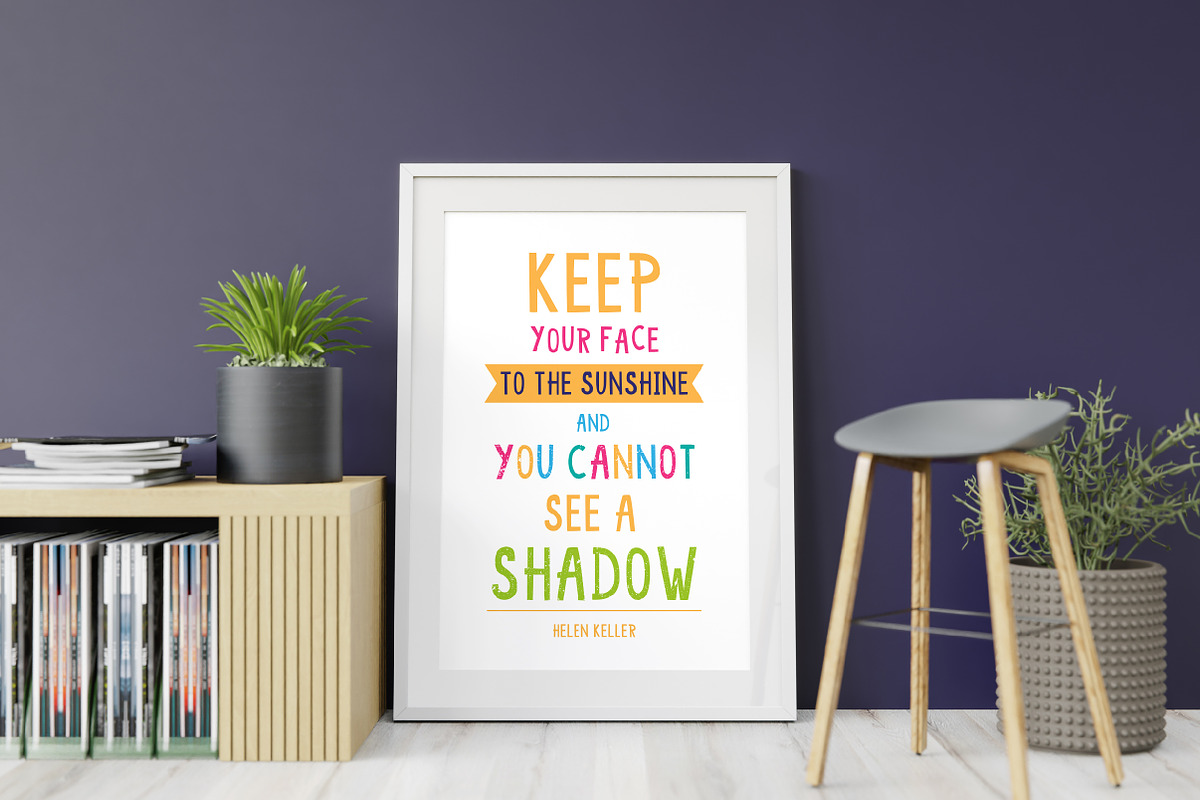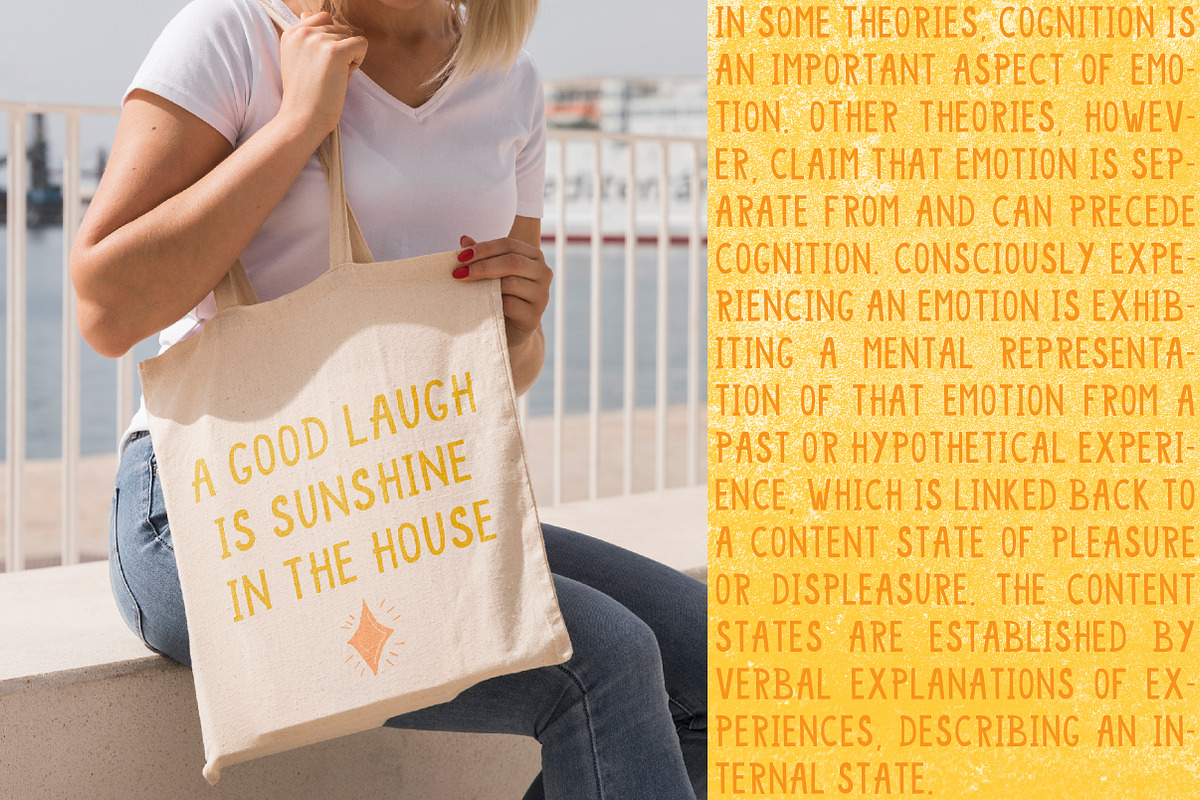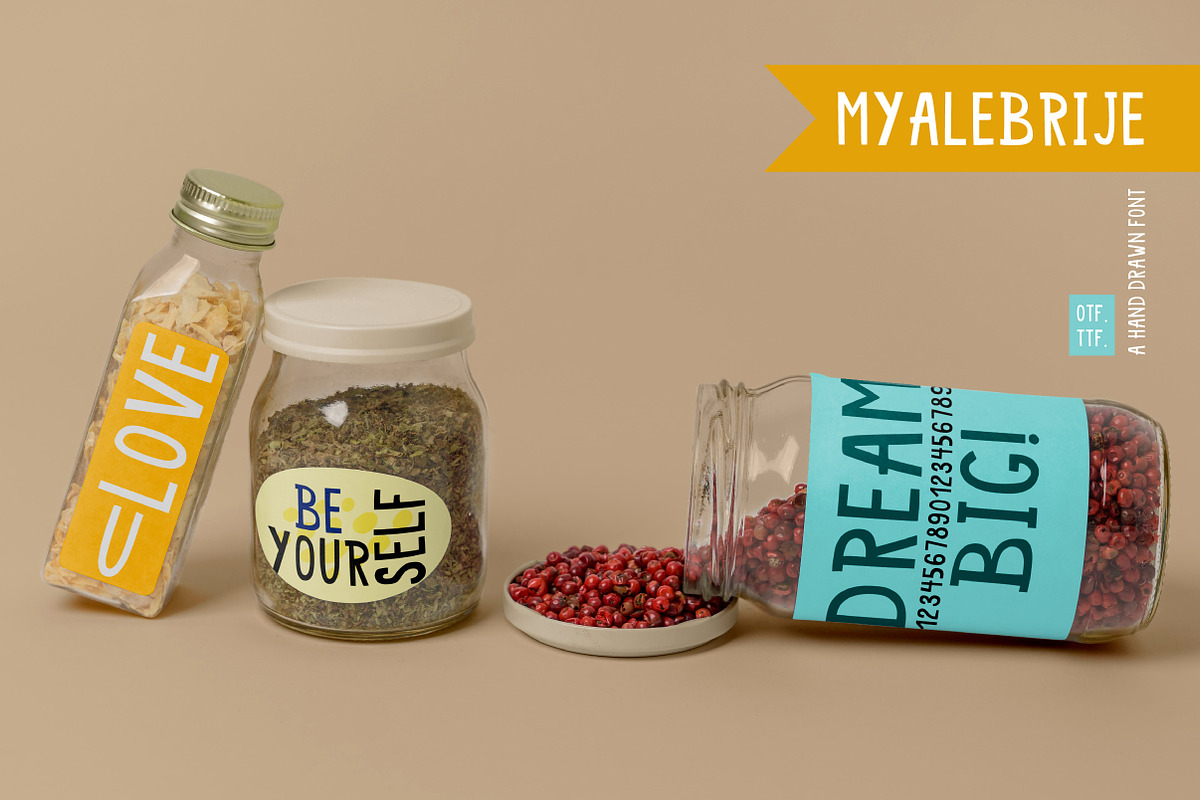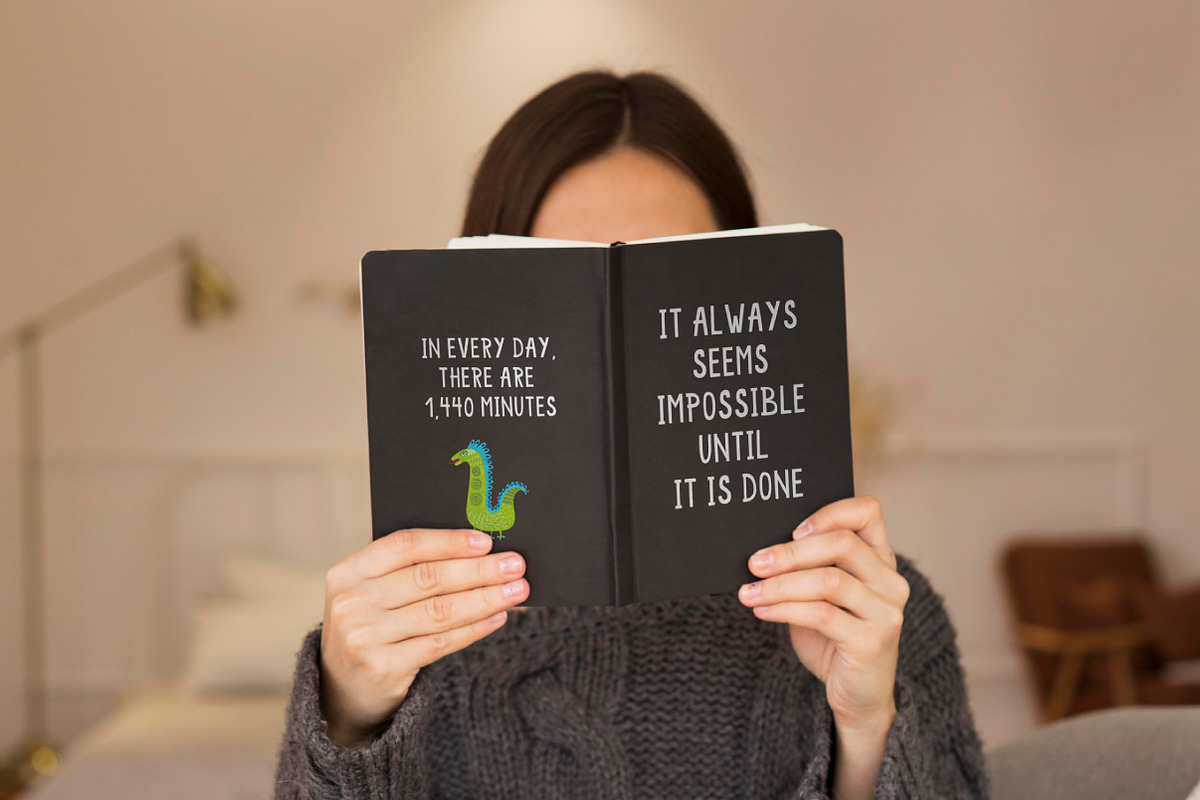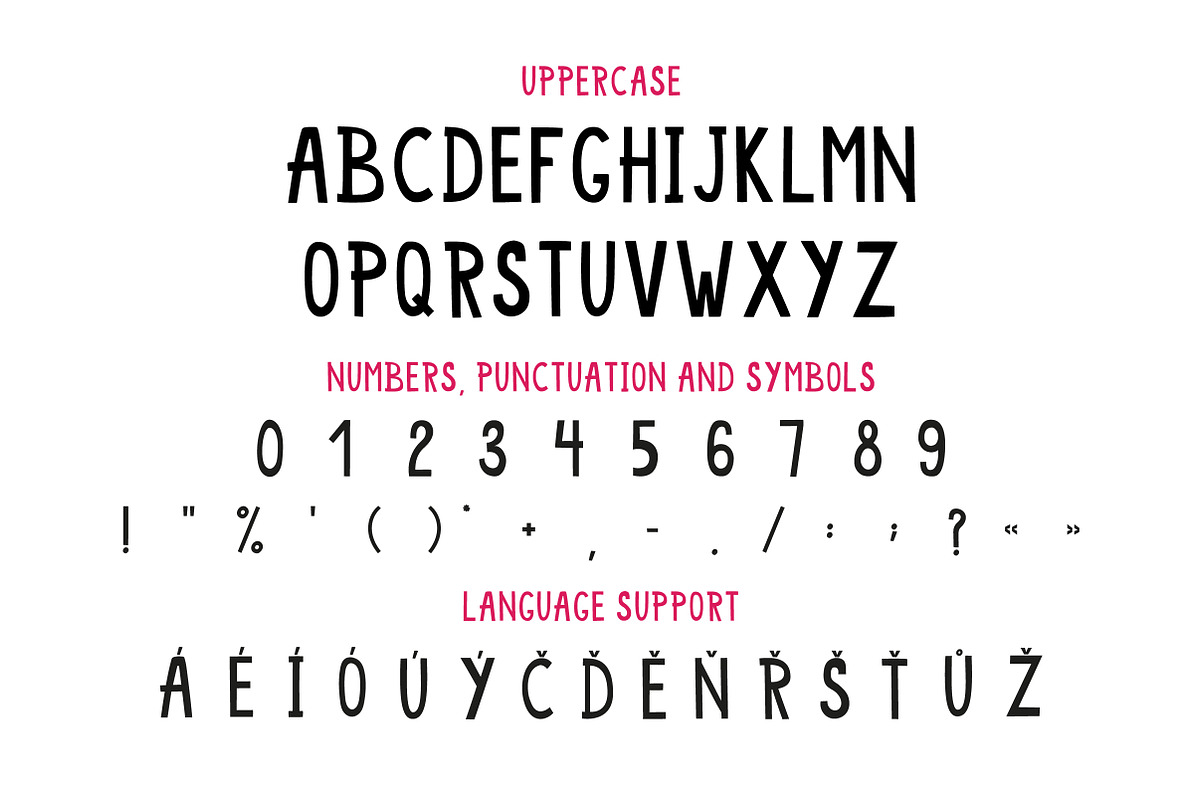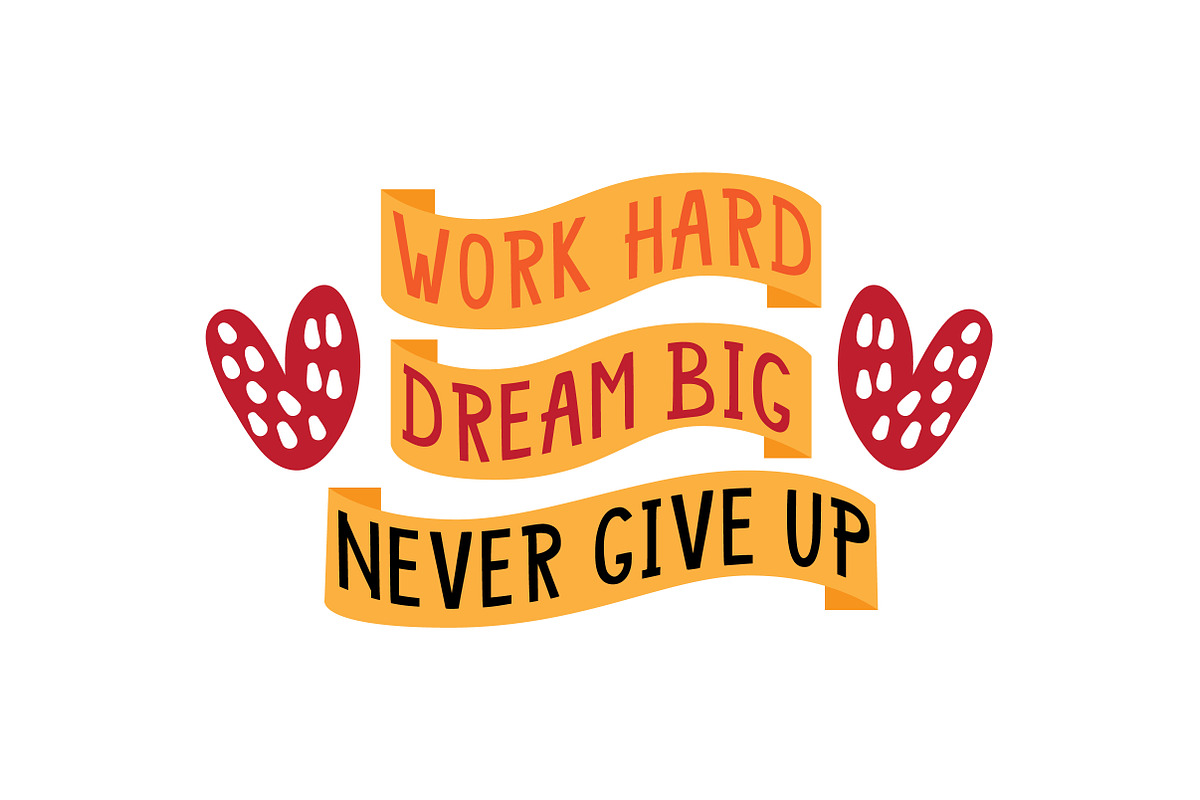
MYALEBRIJE a handdrawn font.
''Myalebrije'' is a hand-drawn font. It Will be perfect for the decoration of postcards, posters, clothes and different printing products.